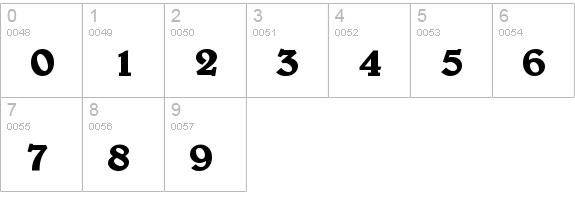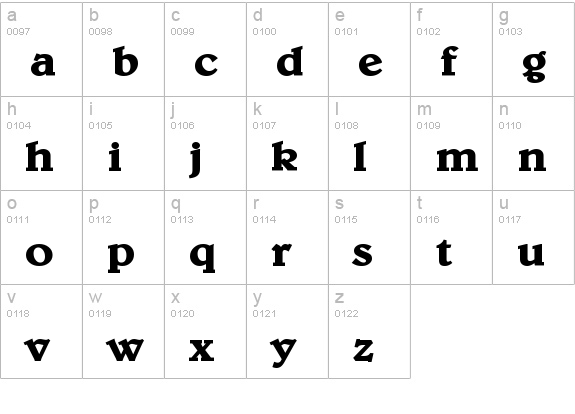
Blew Wide Bold Font Details
Blew Wide Bold is a strong, high-contrast, extended-width variant in the Blew typeface family \xE2\x80\x94 well suited to headlines, attention-grabbing titles, and strong calls-to-action.
Introducing Blew Wide Bold font, a versatile and eye-catching typeface that commands attention with its bold and modern design. This font is perfect for adding a touch of sophistication to any project, whether it's for branding, advertising, or graphic design. With its clean lines and strong presence, Blew Wide Bold is sure to make a statement. The best part? Blew Wide Bold is completely free to download at FontsMarket.com. That's right, you can elevate your designs with this stunning font without having to spend a dime. Don't miss out on this opportunity to enhance your creative projects with Blew Wide Bold font – download it now and let your creativity shine!